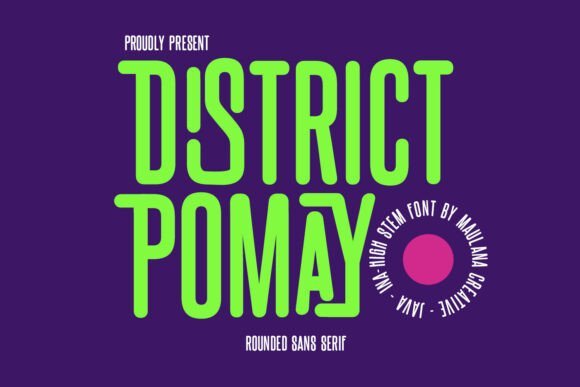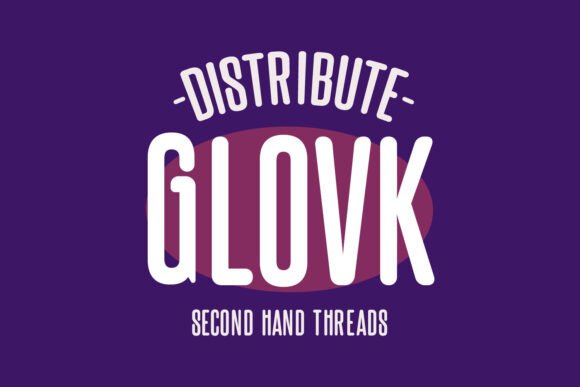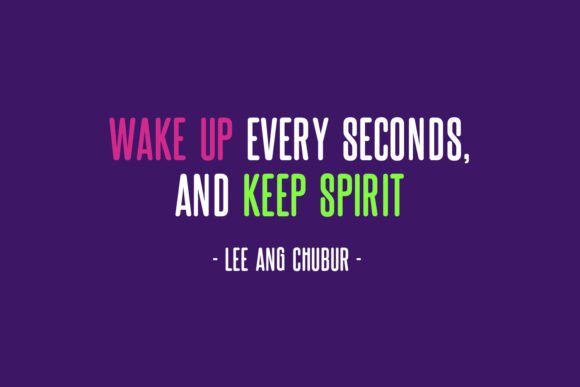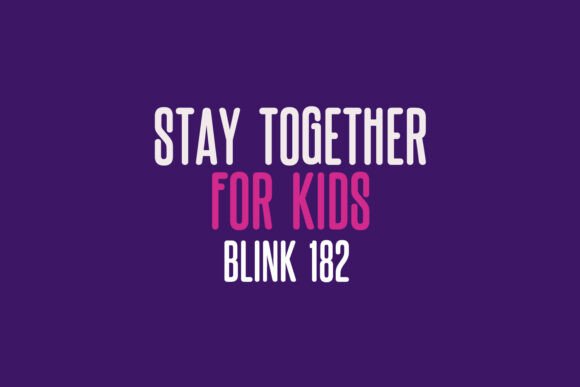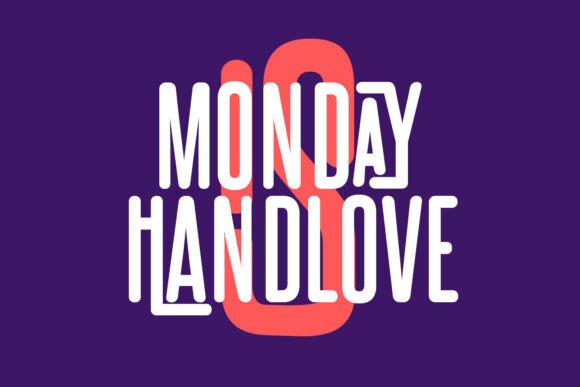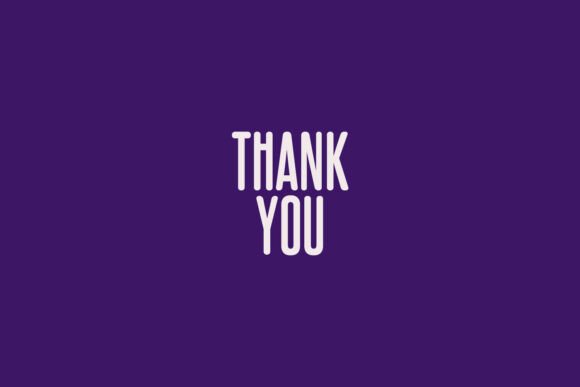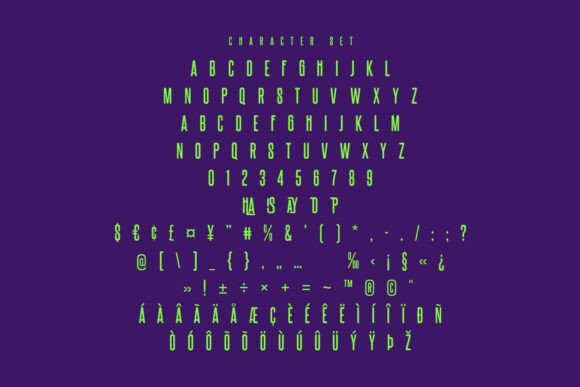
Designing with Heart: The Perfect Font for Your Next Project
Have you ever stared at a blank page, desperately searching for the perfect font to bring your design to life? We’ve all been there. The search can be overwhelming, but what if I told you there’s a font that’s been designed to make your life easier? Introducing the District Pomay Font, a clean and modern rounded sans serif font that’s perfect for designers who want to create a soft, contemporary feel.
The District Pomay Font is more than just a font – it’s a key to unlocking a design that’s both approachable and effective. Its smooth, curved edges make it a joy to read, and its versatility means it can be used for both headlines and body text. Whether you’re working on a branding project or a website, the District Pomay Font is a valuable addition to your design toolkit.
District Pomay Font Key Features
- Font Family: District Pomay is a sans-serif font family.
- Font Size: The font family is available in 4 different font sizes: Thin, Light, Regular, and Bold.
- Unique Characteristics: Distinctive geometric shapes and rounded edges give the font a modern and sleek appearance.
Review of District Pomay Font
As a designer, I’ve had the chance to work with the District Pomay Font, and I must say it’s an interesting choice. Here’s my honest review.
- The font’s bold and modern aesthetic makes it perfect for urban-themed projects.
- It has a wide range of weights, making it easy to create visual hierarchies in your designs.
- The font’s geometric shapes make it highly legible, even at smaller font sizes.
- The font may feel a bit too generic for some projects, lacking a unique personality.
- The italic styles can be a bit inconsistent, making it difficult to achieve a cohesive look.
- The font may not be the best choice for body text, as it can be a bit too bold and overwhelming.
Overall, District Pomay Font is a solid choice for designers looking for a modern, urban aesthetic. While it may have some limitations, it’s a great option for titles, headings, and other display text. However, it’s not the best choice for body text or projects that require a unique, personal touch.
District Pomay Font is ideal for:
1. Creating modern and edgy graphics.
2. Designing logos and branding materials.
3. Adding a touch of sophistication to digital documents.
4. Creating eye-catching social media graphics.
Alternatives to District Pomay Font
Montserrat is a popular sans-serif font designed by Julieta Ulanovsky. It is a great alternative to District Pomay Font for projects that require a clean and modern look. Montserrat is more versatile and can be used in various applications, from digital products to print materials. It is also highly legible and suitable for body text.
Comparison: Montserrat is more geometric and structured compared to District Pomay Font, which has a more rounded and playful feel. Montserrat is a better choice for projects that require a professional and modern look.
Lato is a sans-serif font designed by Łukasz Dziedzic. It is a great alternative to District Pomay Font for projects that require a clean and elegant look. Lato is highly legible and suitable for body text, making it a great choice for digital products and websites.
Comparison: Lato is more rounded and friendly compared to District Pomay Font, which has a more edgy and modern feel. Lato is a better choice for projects that require a warm and inviting look.
Open Sans is a popular sans-serif font designed by Steve Matteson. It is a great alternative to District Pomay Font for projects that require a clean and modern look. Open Sans is highly legible and suitable for body text, making it a great choice for digital products and websites.